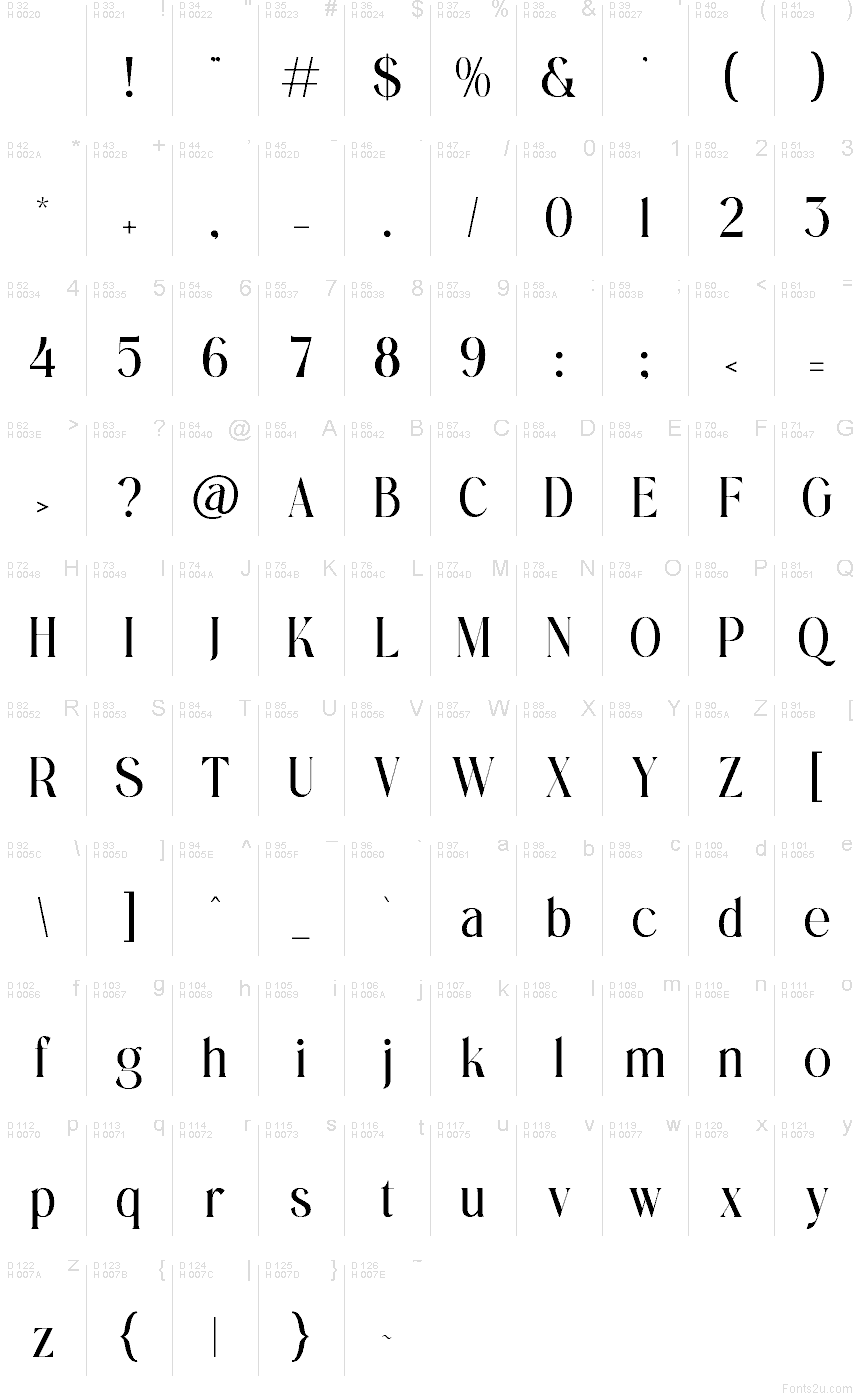
Eternalo by TimelessType.co is a free high-contrast serif with a polished, fashion-led voice. Its letters pair razor-thin joins with broad, smooth curves, while the serif treatment stays crisp enough to give the whole font a poised, editorial rhythm.
This free font makes sense in magazine mastheads, boutique branding, perfume packaging, book covers, and title cards where a refined, high-style tone matters. It also works well for short headlines and monograms, because the dramatic contrast and rounded lowercase shapes give even a few letters a composed, luxurious presence.